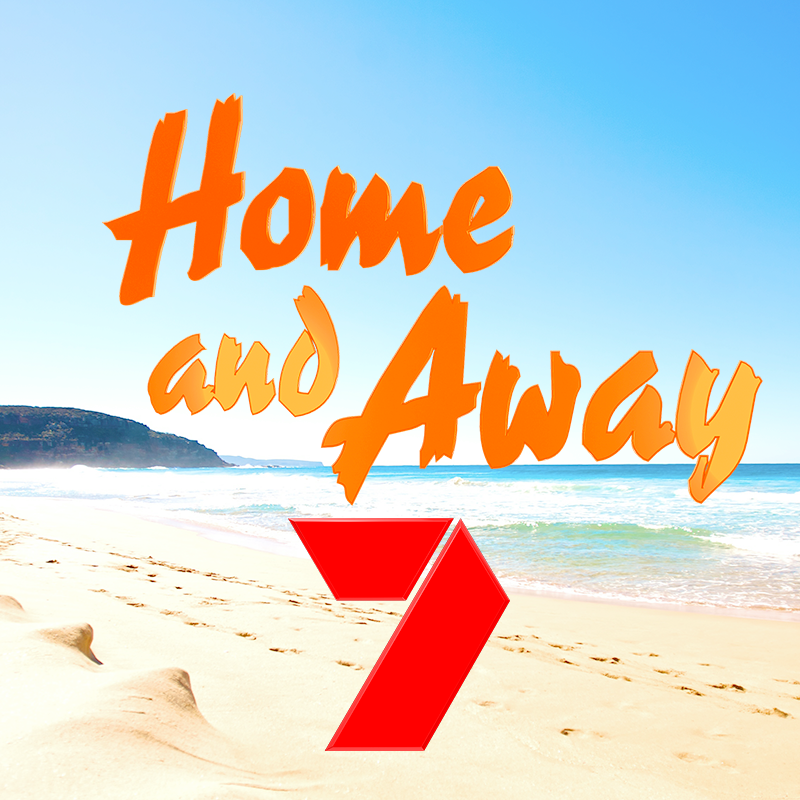
Home and Away Font
DramaHome and Away is an Australian television soap opera that has been airing since 1988. It follows the lives of the residents of the fictional town of Summer Bay.
The title font of the TV series is similar to the font Reporter which was designed by Carlos Winkow in 1938 for the Wagner foundry. Reporter No. 2 is a simplified version of the original Reporter, lacking small white strokes within its stems. More information on the font can be found here.